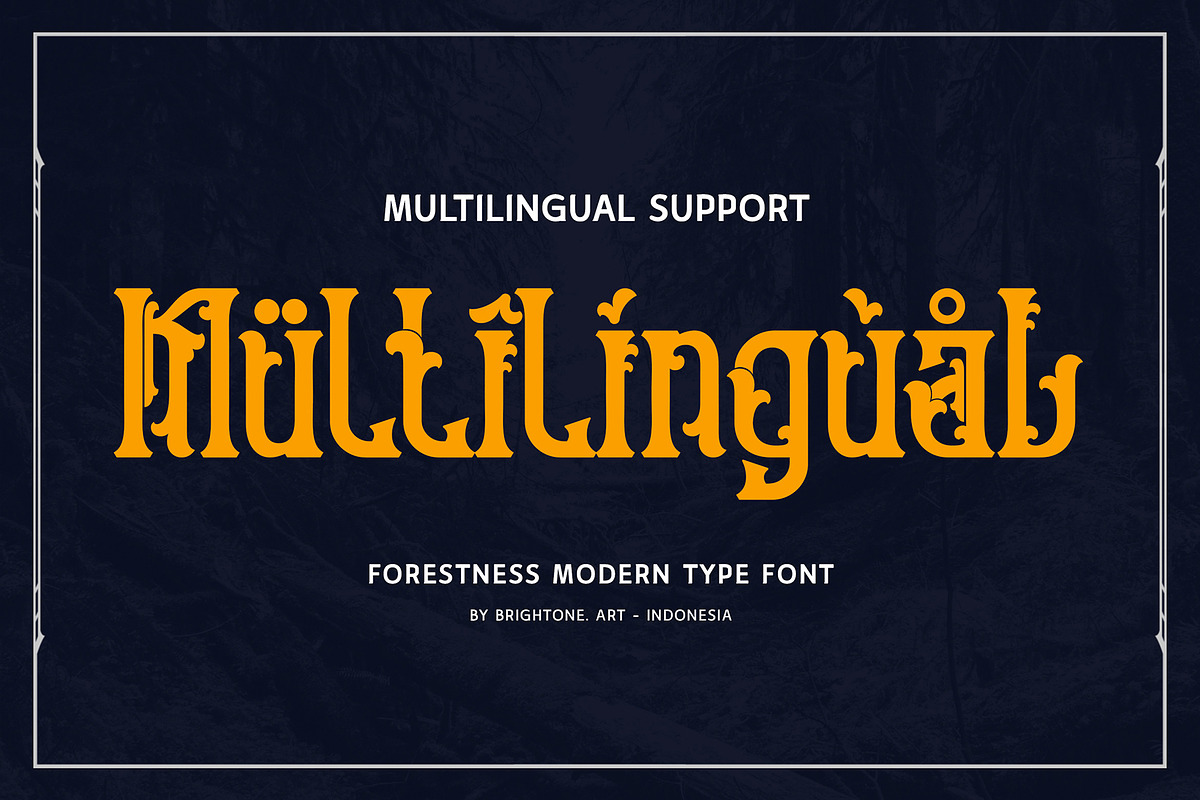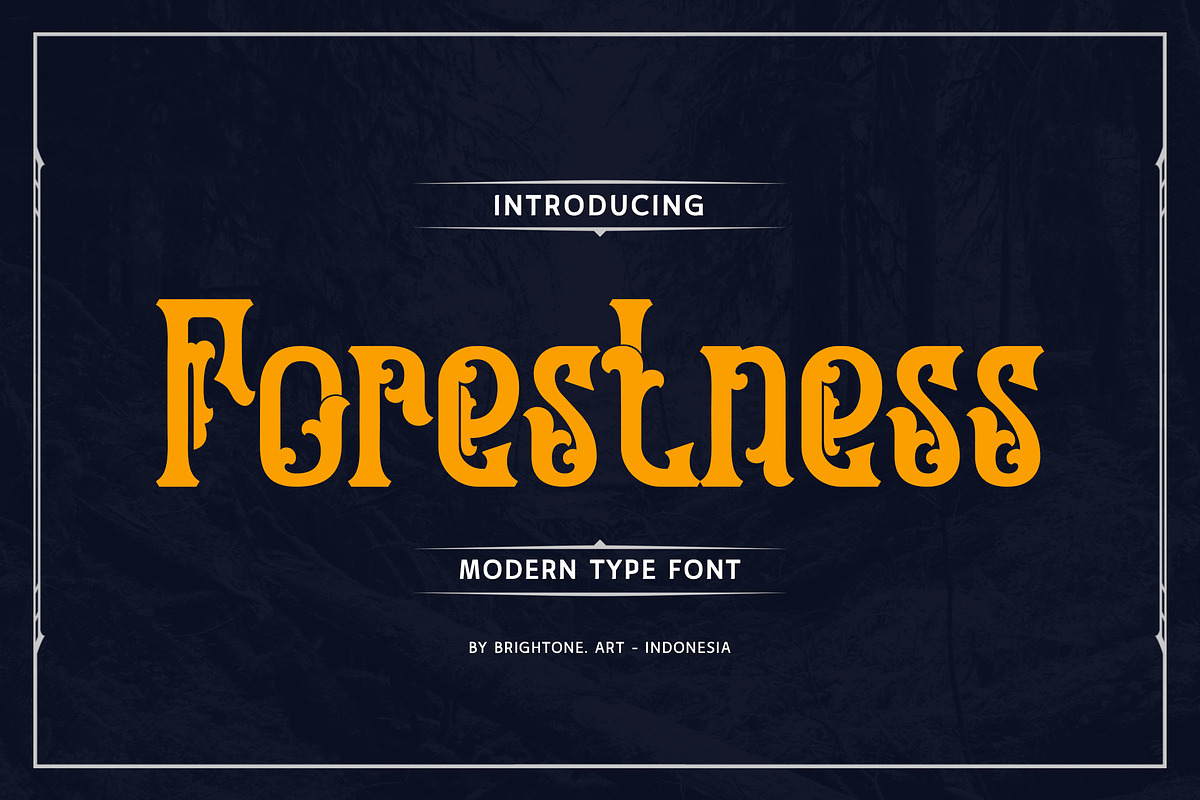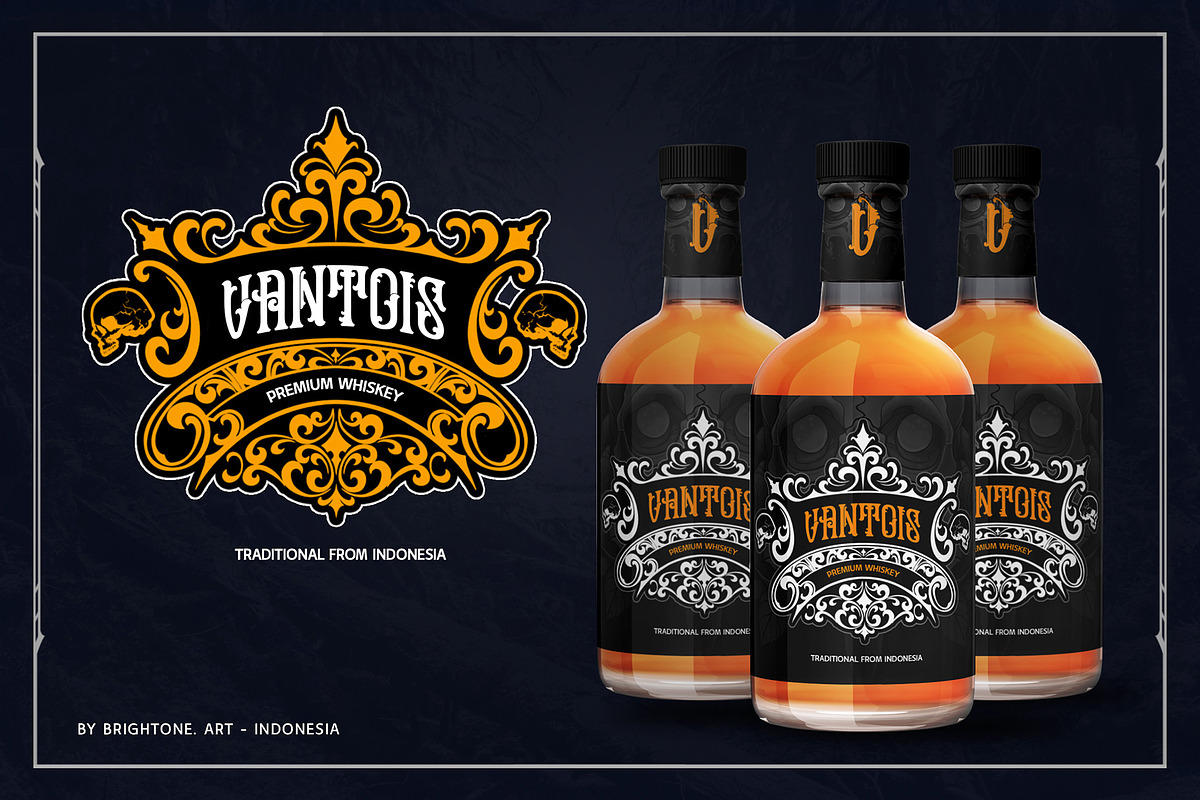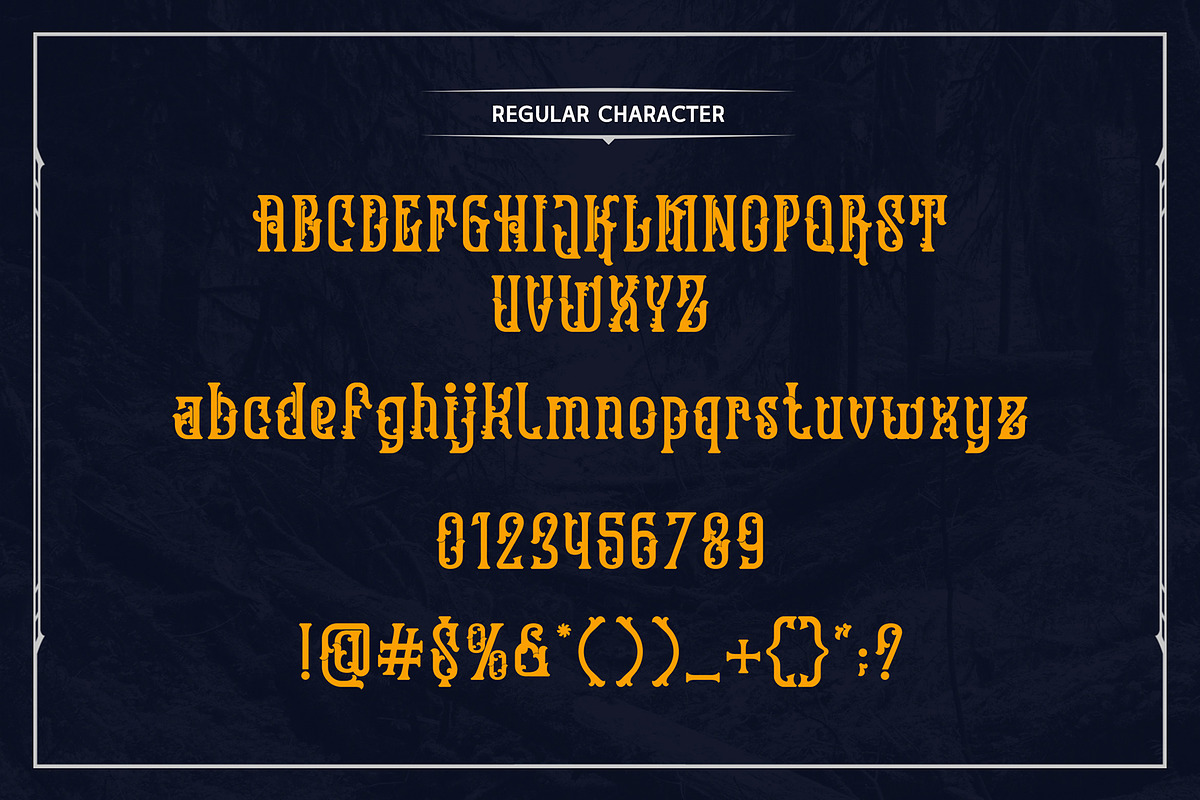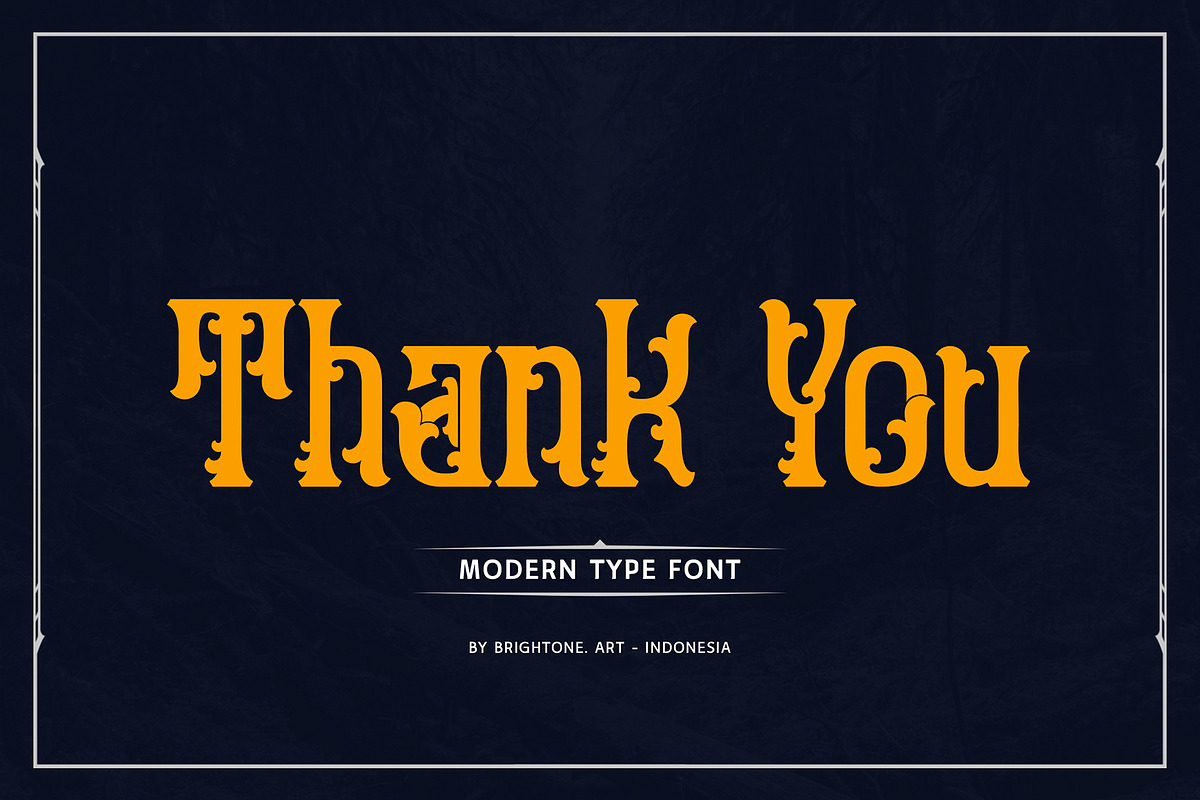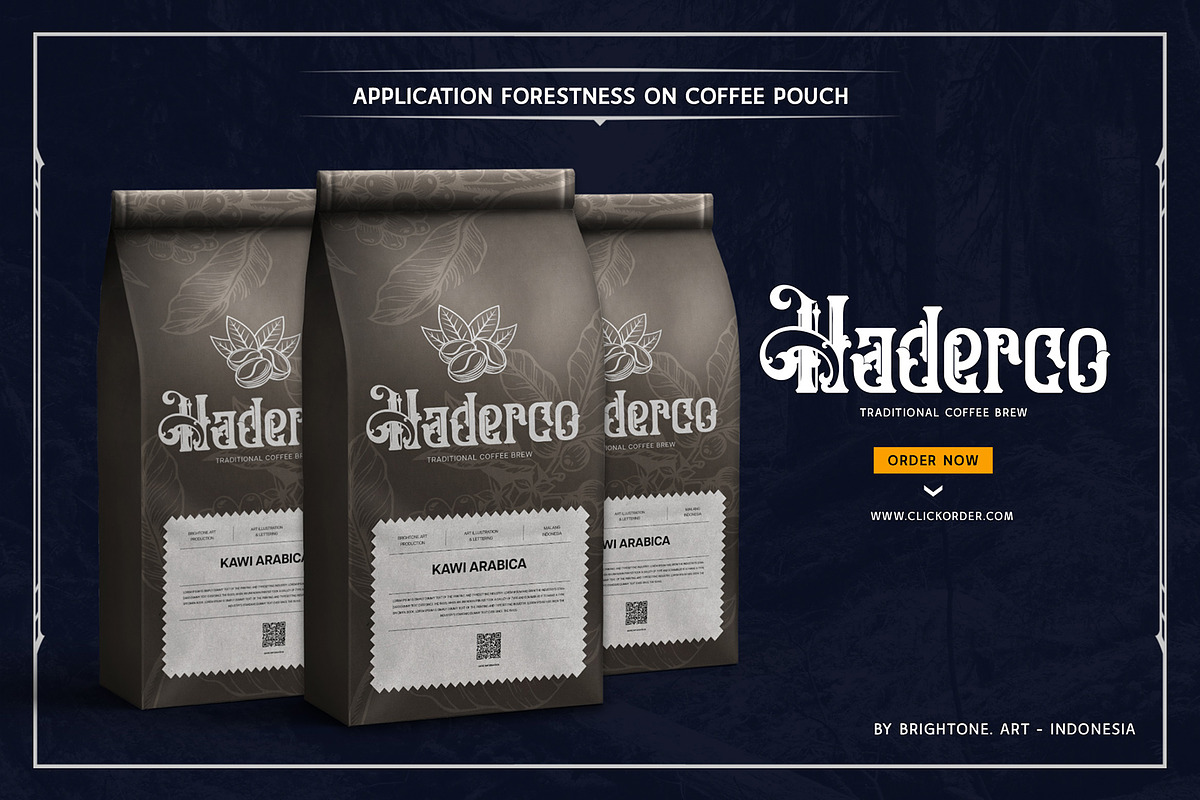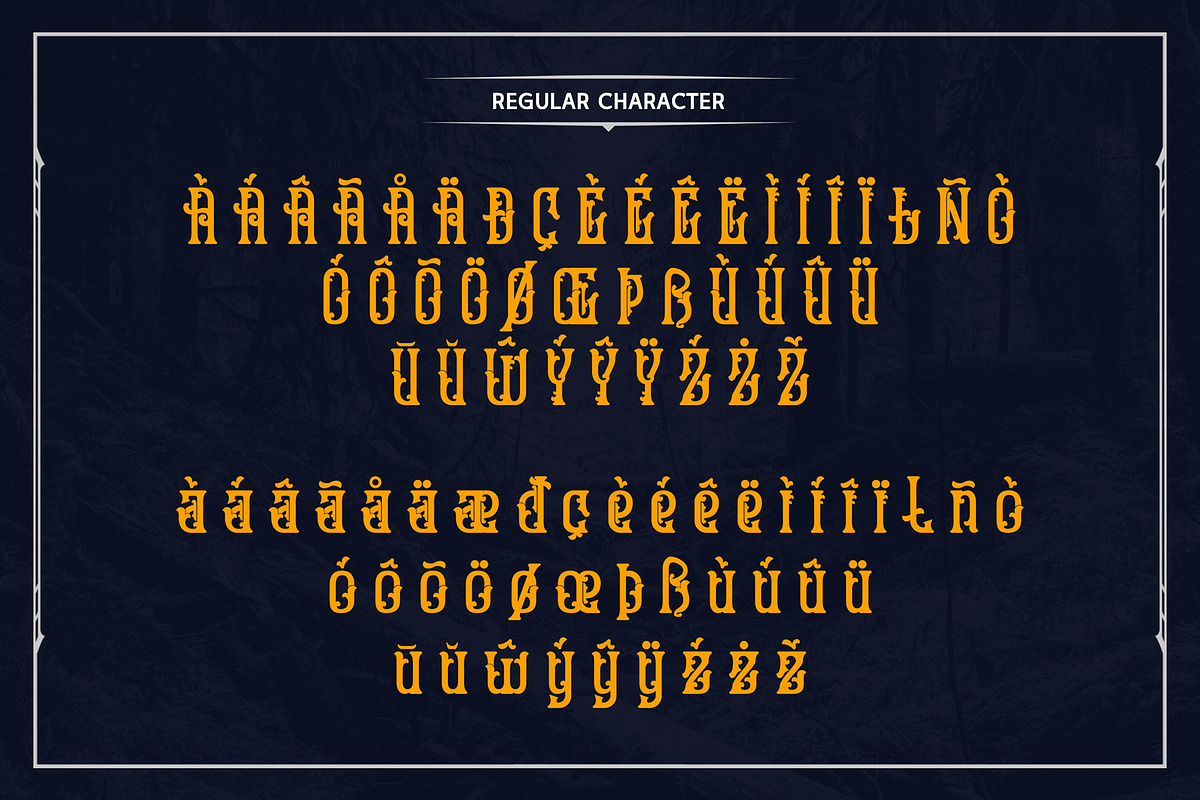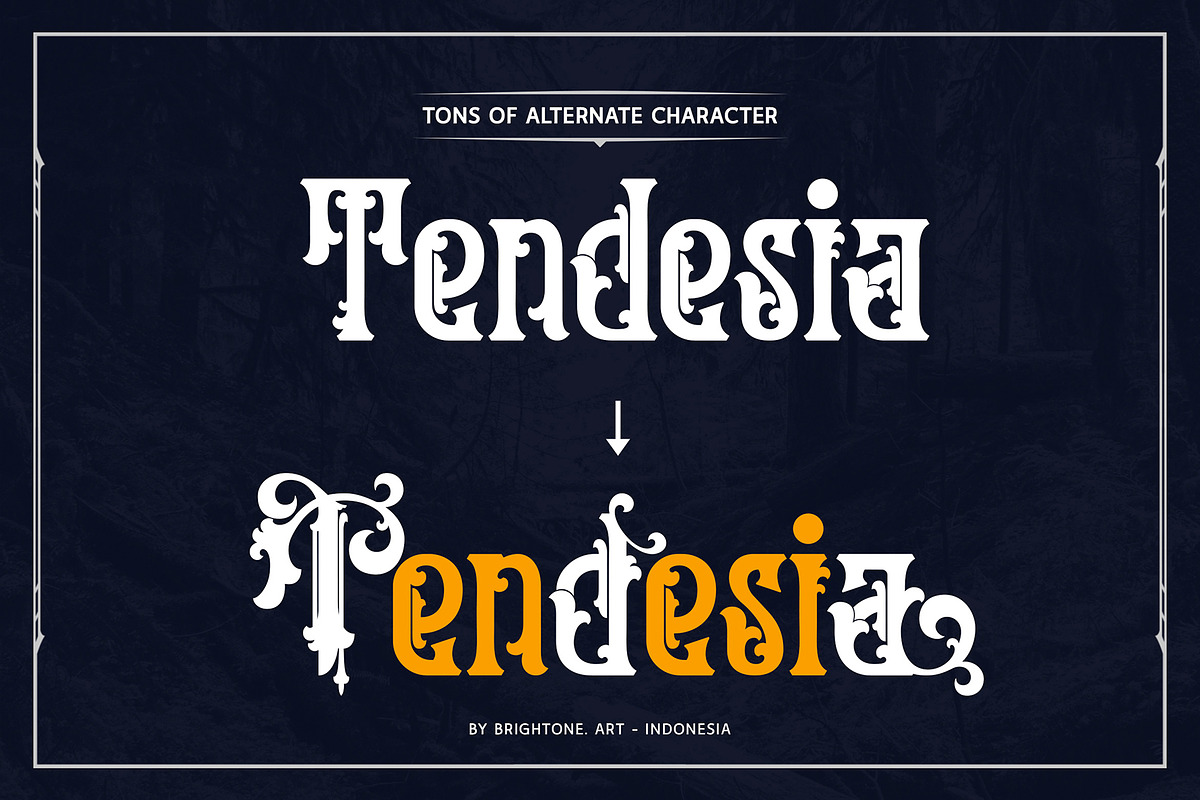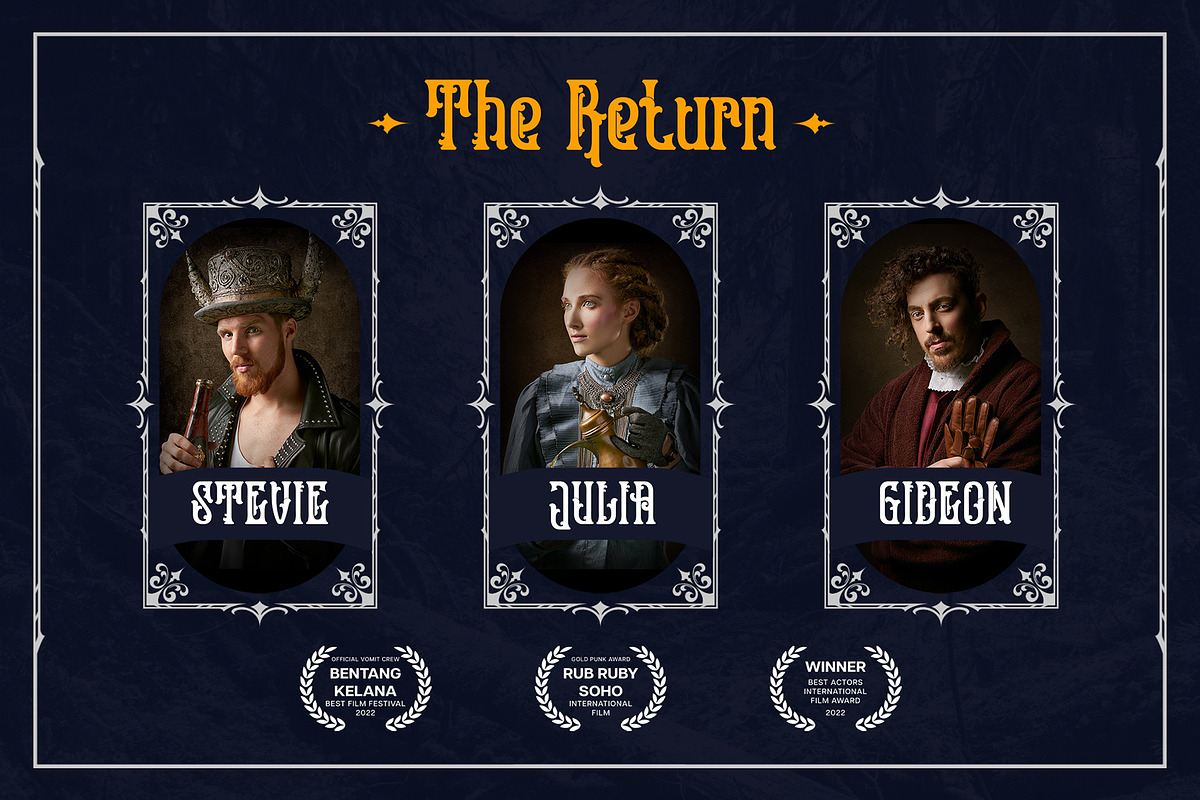
Forestness - Lovely Decorative Font
FORESTNESS is unique and stylish decorative font style based on typeface combination which shapes are combined to make more stunning, these font includes:
- Uppercase and Lowercase Characters, Numbers and Punctuation.
- Enchanted Alternates.
- Multilingual Support (Eastern, Central and Western European countries).
FORESTNESS font is suitable to use for all purpose for your logo lettering, logo, label, packaging, sticker, branding and many more.